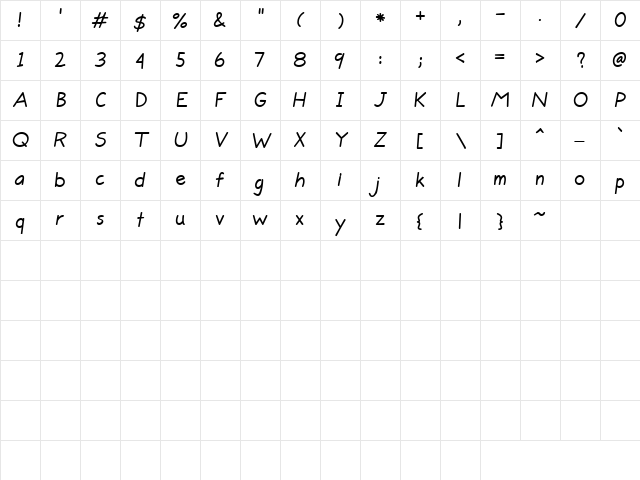
CK Neat Print Regular
Design Context for CK Neat Print Typeface
CK Neat Print offers clean, dependable letterforms without strong stylistic allegiance, making it a practical choice for designers who need flexibility.